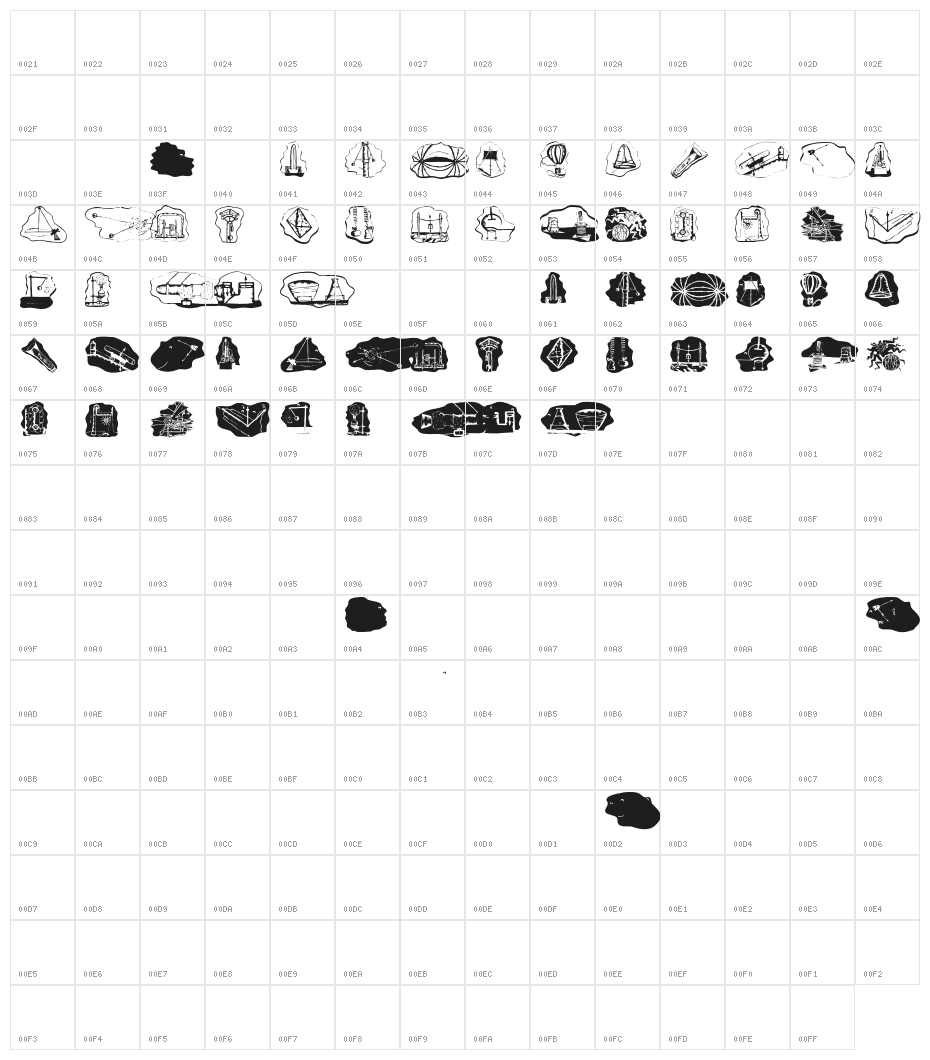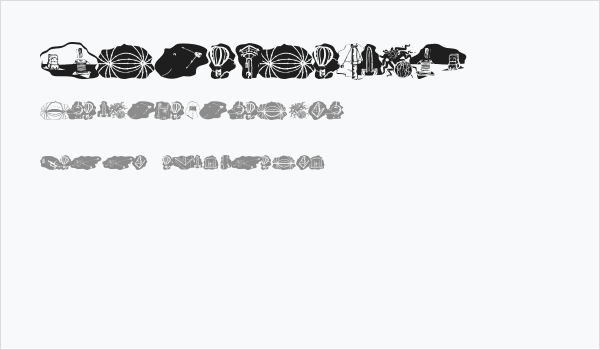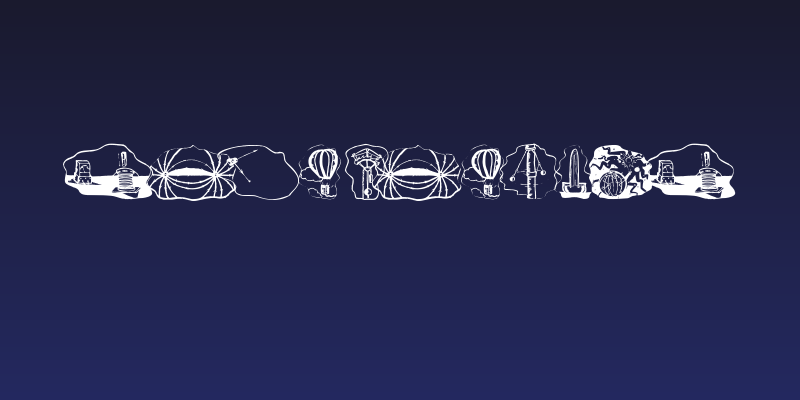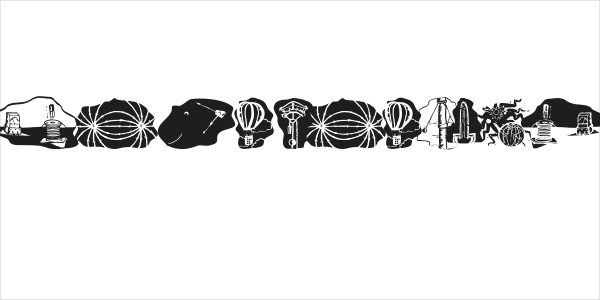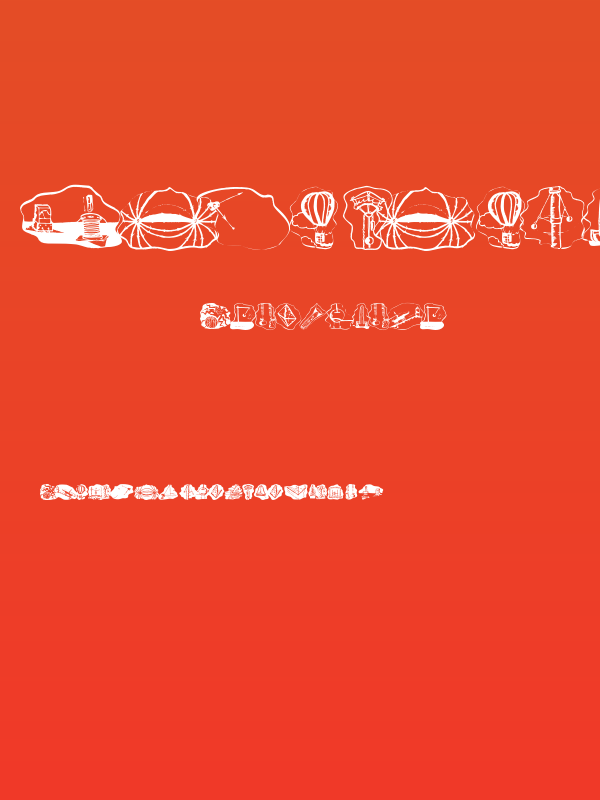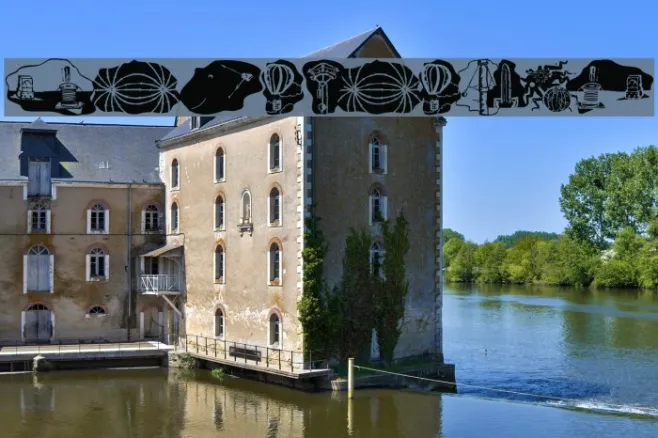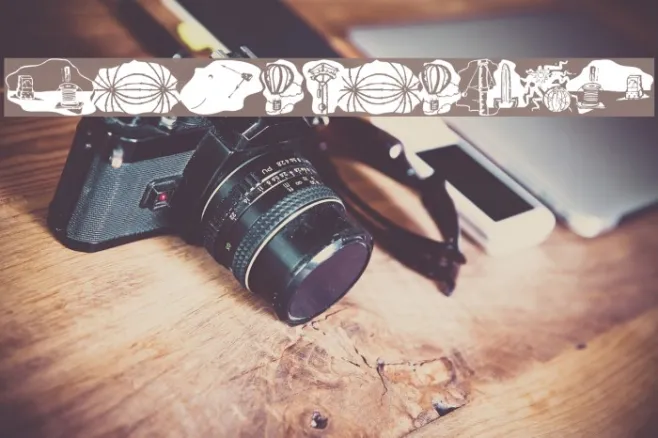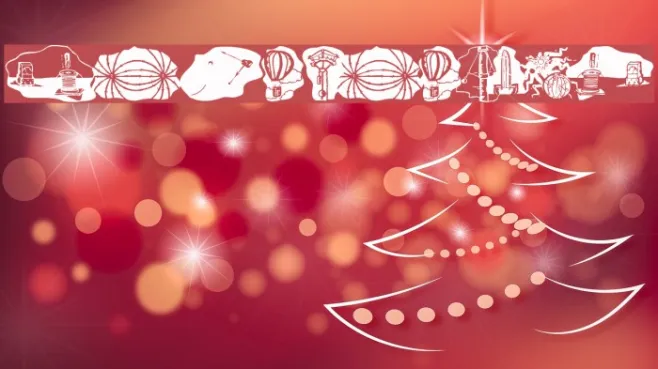
ScienceBats Font
ScienceBats Description
This font is a highly decorative and thematic typeface that incorporates intricate scientific and mechanical illustrations within each character. Each letter and symbol is uniquely designed to resemble various scientific instruments and concepts, creating a visually engaging and complex appearance. The font is not meant for traditional readability but rather for artistic and thematic purposes, making it ideal for projects that require a strong visual impact. The detailed illustrations within each character add a layer of depth and creativity, making it suitable for specific niche applications.
| Use Case | Logos, Artistic displays, Thematic posters |
| Proposed Projects | Ideal for science-themed posters, educational materials, creative projects, and artistic displays where a strong visual theme is desired. |